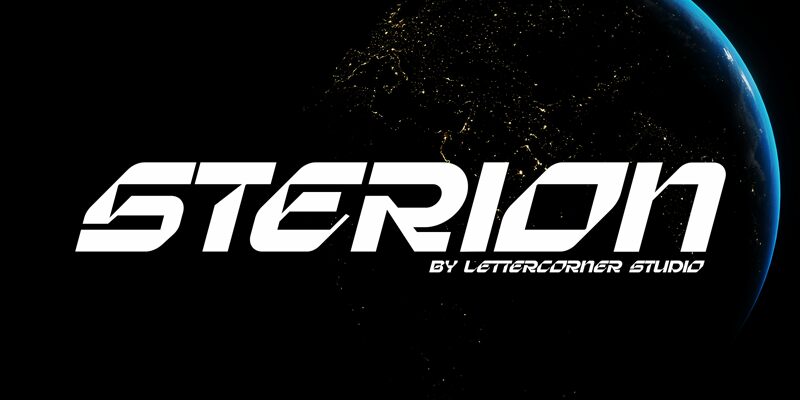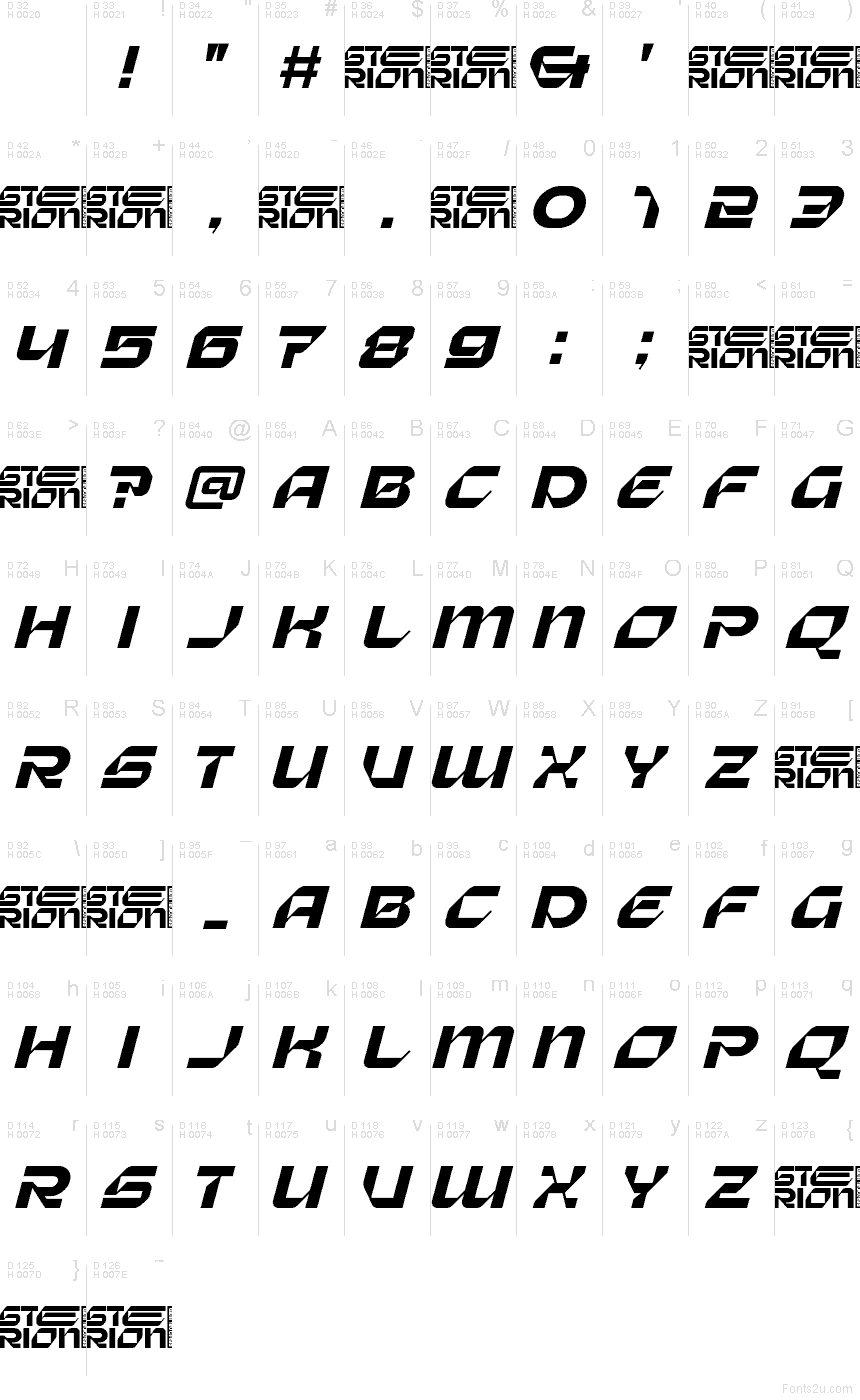
Sterion Italic font by Mocha Frappuccino is a free futuristic display typeface with a built‑in sense of motion. Every letter is sharply angled and sliced, like panels on a stealth vehicle, with heavy diagonals that feel fast and mechanical. The tight spacing and continuous forward lean make words lock together into a single, streamlined graphic, so even short titles hit like a logo.
Using Sterion Italic, you can push energy and speed into esports branding, racing posters, sci‑fi game titles, tech event graphics, bold YouTube thumbnails, and futuristic album covers. This free font shines at large sizes where its beveled cuts and chunky forms can really breathe. For longer text or small captions, pair Sterion from the same family with a clean geometric sans and let Sterion Italic handle the high-impact moments.
Lettercorner Studio
Sterion
Muhammad Afif Ersya